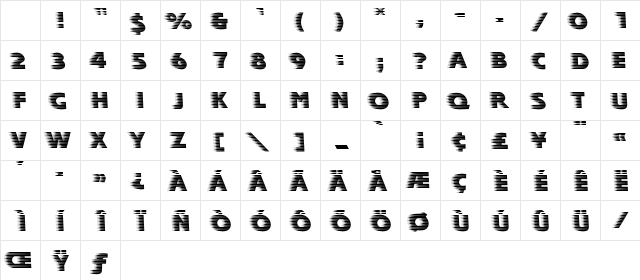
Complete ipstreamSpeedy Vertical glyph index. Displaying only characters natively supported by ipstreamSpeedy Vertical font.
ipstreamSpeedy is a composed and adaptable typeface that performs quietly and consistently across a wide range of design contexts.